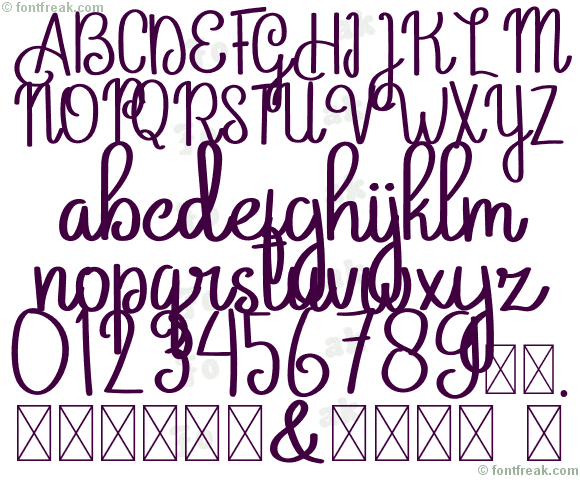
Arbiy
About Arbiy
Arbiy is a captivating display font designed by Eknoji Studio that embodies a unique blend of modern flair and artistic charm. As a display typeface, it captures attention with its bold and playful characteristics. The font features a combination of thick and thin strokes, creating a striking contrast that enhances its visual appeal. The rounded edges and fluid lines give Arbiy an inviting, friendly demeanor, making it suitable for a variety of creative applications. The spacing is well-balanced, ensuring readability while maintaining an eye-catching style.
This font shines in various use cases, particularly in creating vibrant wedding invitations where its charming aesthetic can convey joy and celebration. Arbiy also excels in movie posters, where its bold presence can effectively grab viewers' attention and set the tone for the film. Restaurant menus can benefit from Arbiy's distinctive style, adding a touch of personality that reflects the dining experience. Additionally, it can be used in branding for small businesses, allowing owners to establish a memorable identity that resonates with their target audience.
Targeted toward graphic designers, small business owners, and content creators, Arbiy offers versatility and creativity, providing users with an opportunity to enhance their projects with a fresh, modern font. Its unique characteristics make it a valuable addition to any design toolkit.
What truly sets Arbiy apart is its ability to merge playful design with functionality. Whether you're crafting a memorable brand or designing an eye-catching event invitation, the Arbiy font free download offers a perfect solution. This font stands out not only for its aesthetic qualities but also for its potential to elevate any creative endeavor, making it an indispensable resource for designers looking to make a statement.